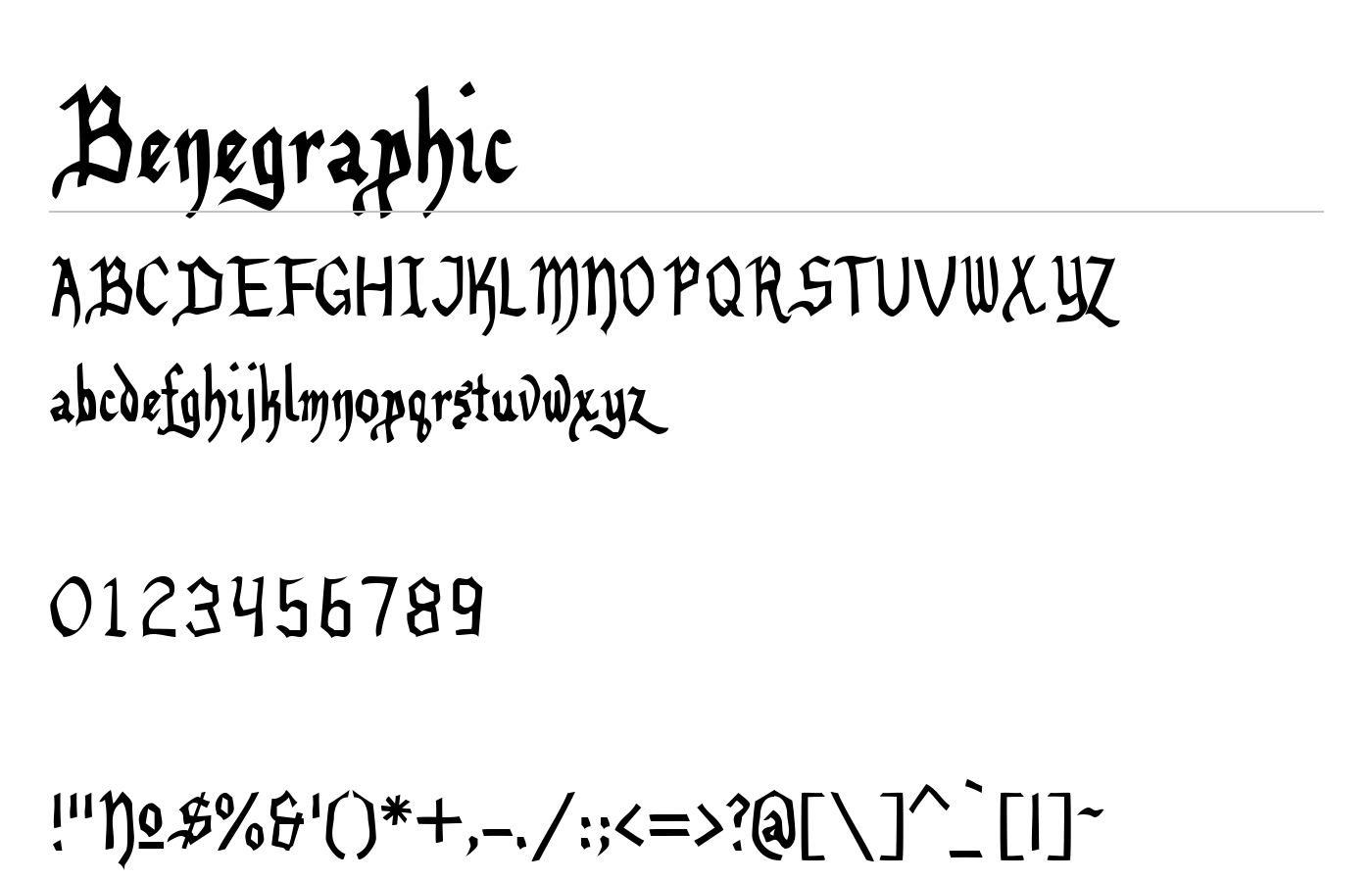
Benegraphic is a decorative blackletter-style font with sharp, angular strokes and a medium contrast in thickness, evoking a gothic, medieval feel. Its tall, condensed letterforms with distinctive flourishes and pointed serifs make it ideal for designs seeking a vintage, dramatic, or historical mood. This font works best in logos, headlines, posters, or branding where a bold and distinctive character is desired.
Benegraphic Font
About Benegraphic Font